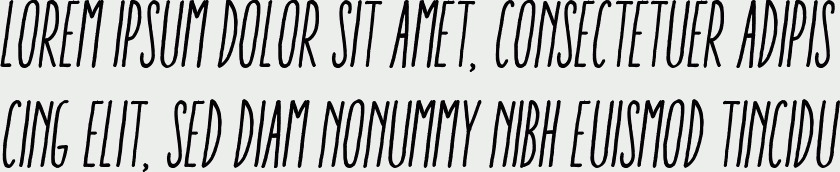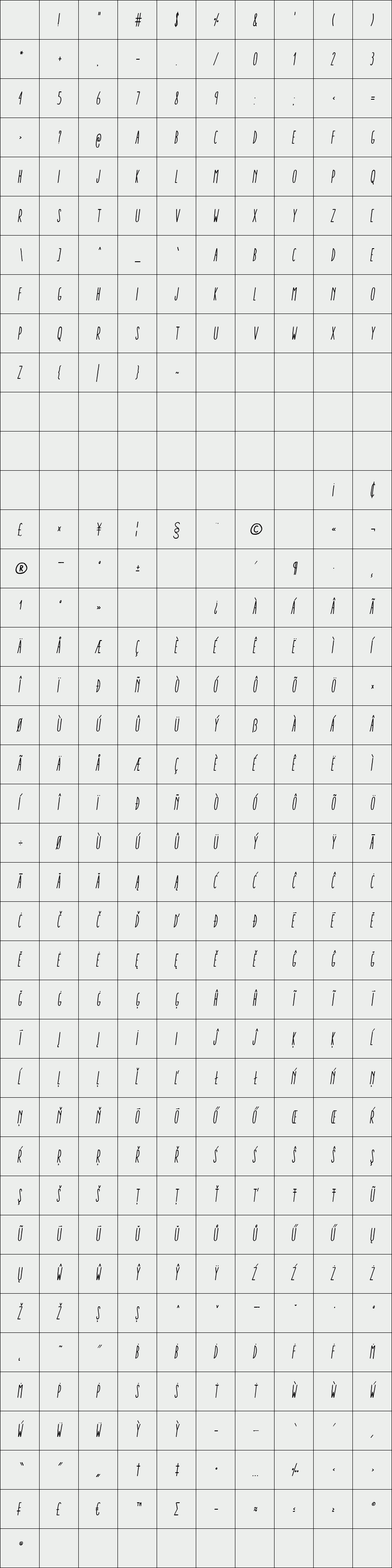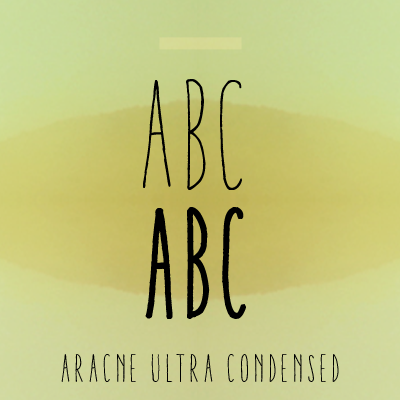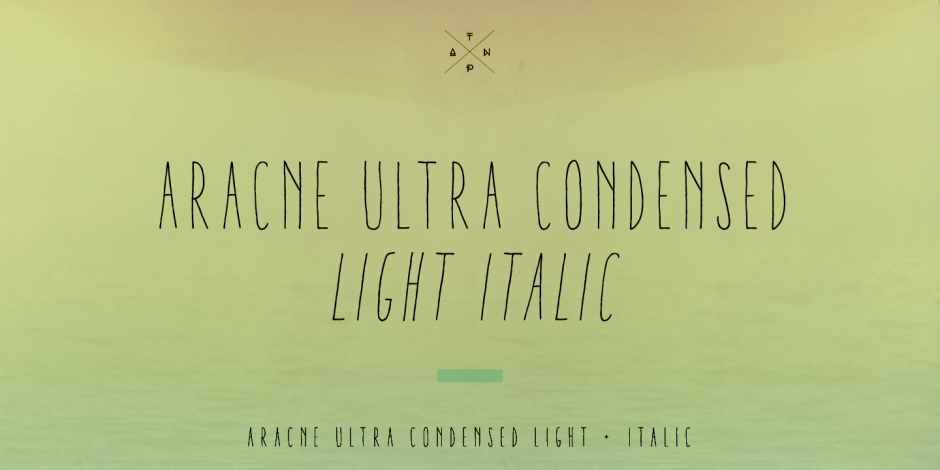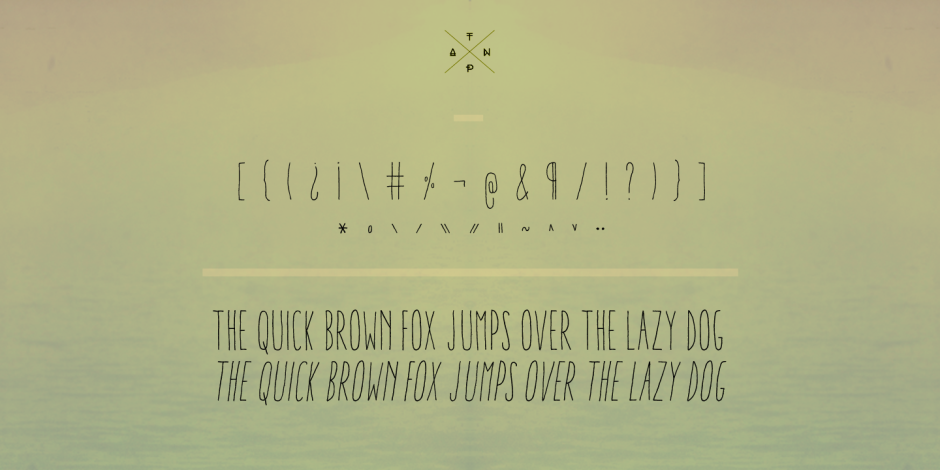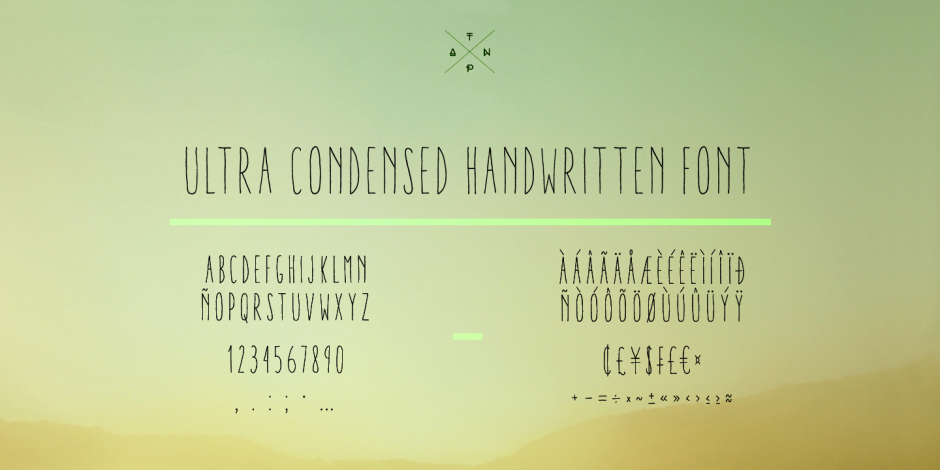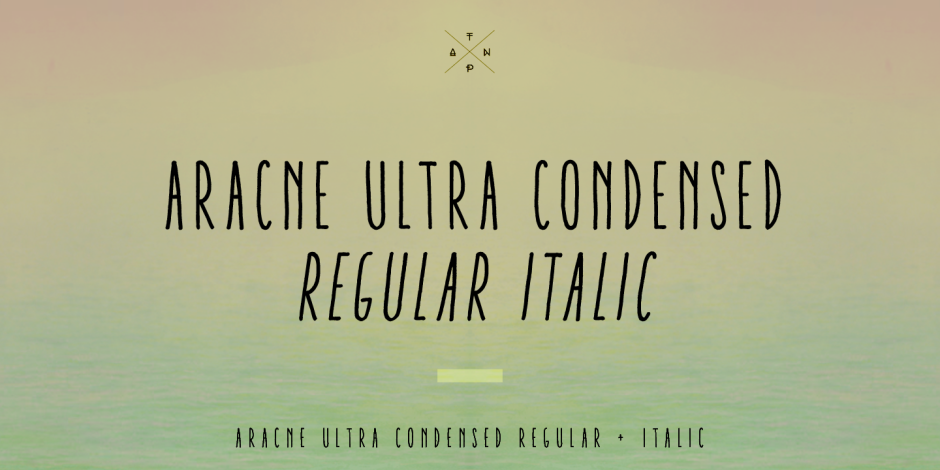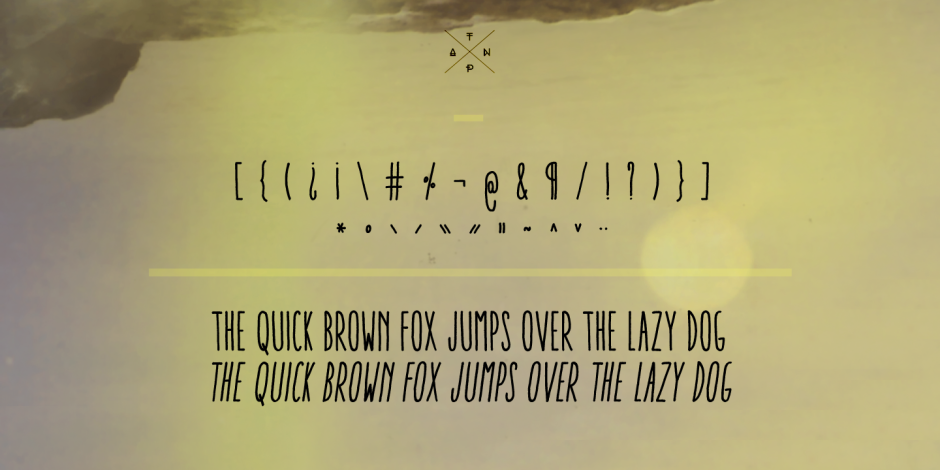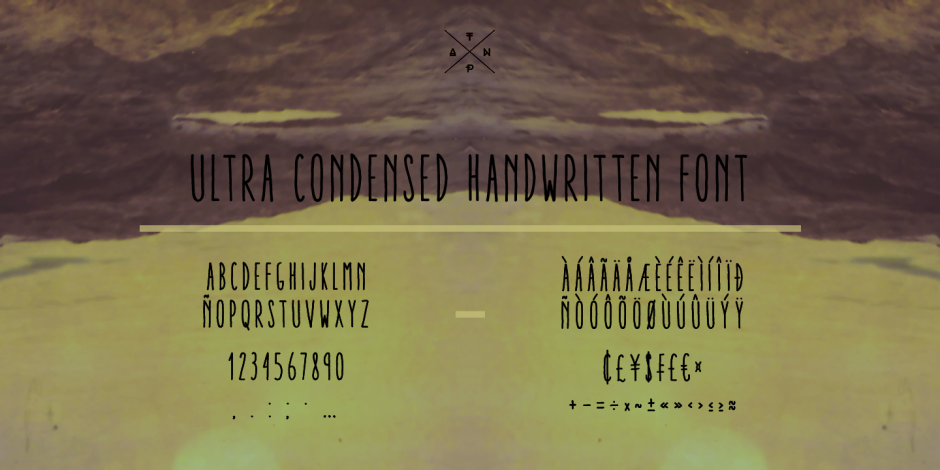
Aracne Ultra Condensed
/ Aracne Ultra Condensed Regular Italic
A decorative handwritten font, with 2 styles. Ultra Condensed version of Aracne.
It’s recommended usage is for display titles, because of its good legibility and quality of glyphs.